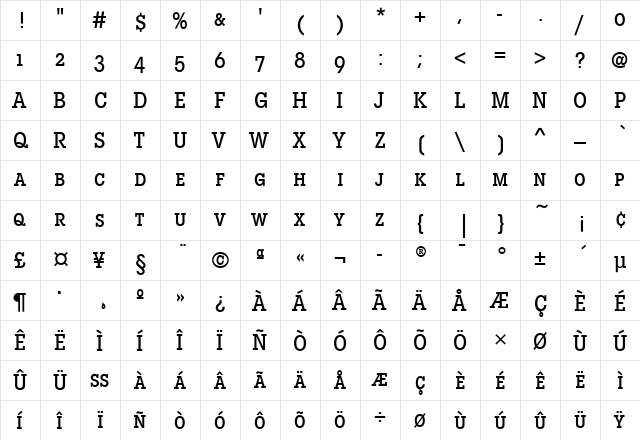
LubalinGraphMdCdSCITC Medium Font Preview
LubalinGraphMdCdSCITC Medium
LubalinGraphMdCdSCITC Medium Font Details
Design Context for LubalinGraphMdCdSCITC Typeface
LubalinGraphMdCdSCITC takes a measured approach to typography — its balanced proportions and neutral character make it a reliable workhorse for both digital and print work.